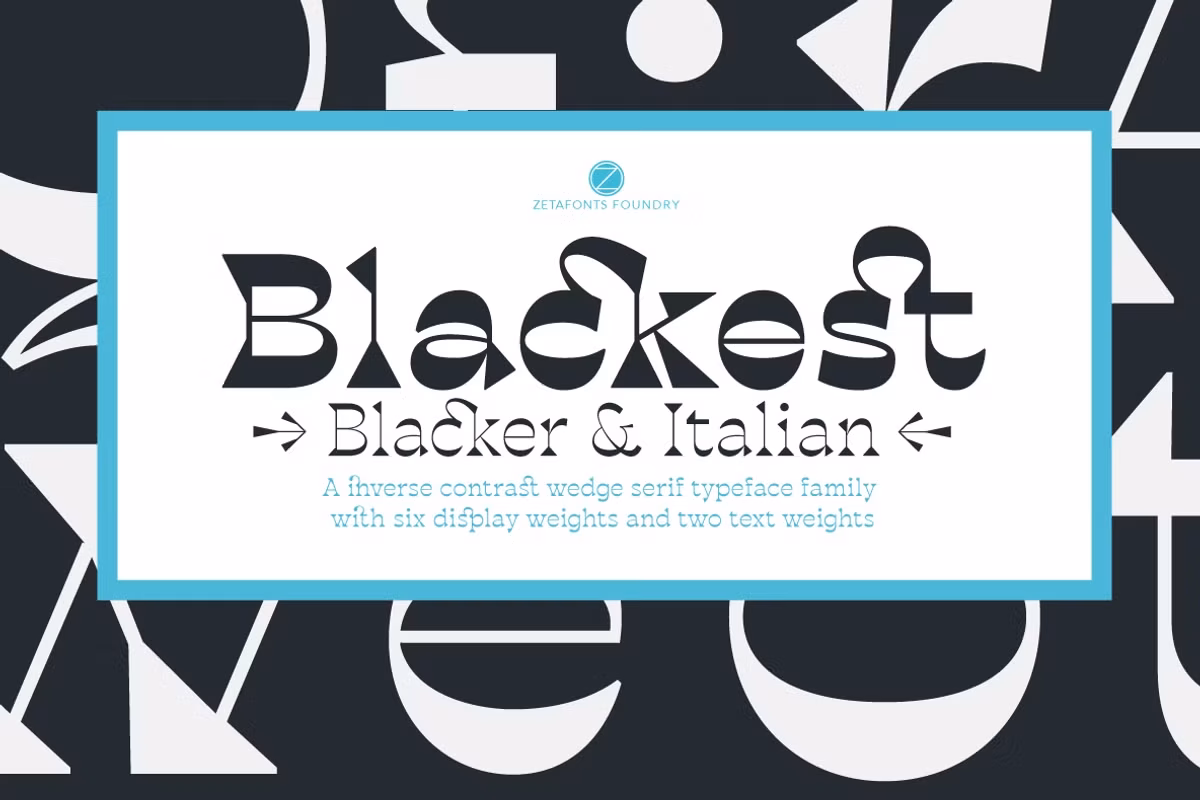
You must purchase these fonts for commercial use. However, you can download Blackest - 8 Fonts Free Download for testing purposes. Blackest is a versatile font family featuring 8 distinct fonts that offer a wide range of typographic options. From bold display fonts to lighter weights, this family allows you to experiment with different styles and weights to fit various design needs. Whether you’re working on logos, posters, branding, or other creative projects, Blackest provides flexibility and power to enhance your designs.
The fonts in the Blackest family feature strong, geometric letterforms, with some styles providing a more structured appearance and others offering a softer, more organic feel. This makes the family perfect for everything from high-impact headlines to subtle body text.